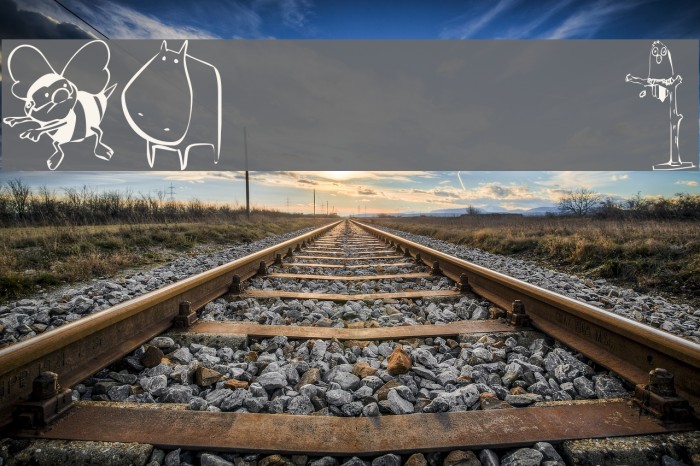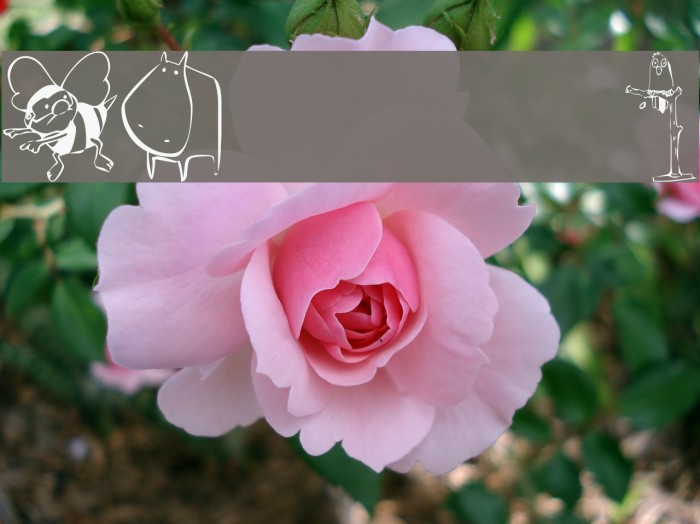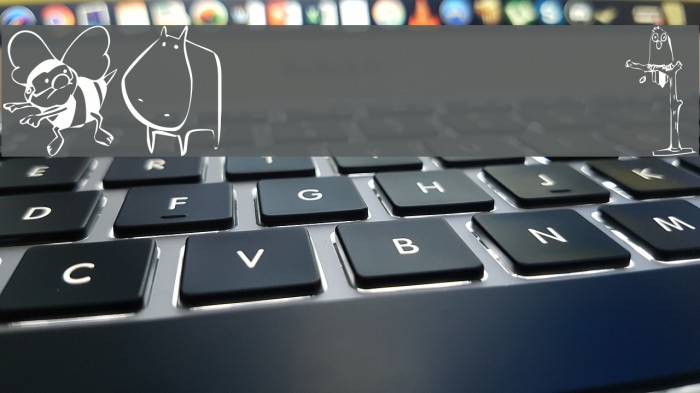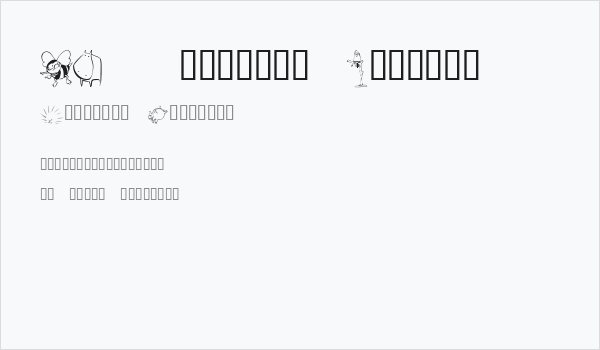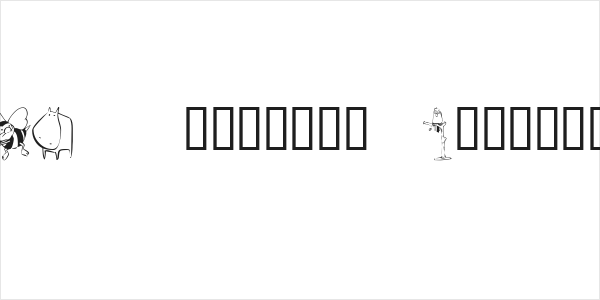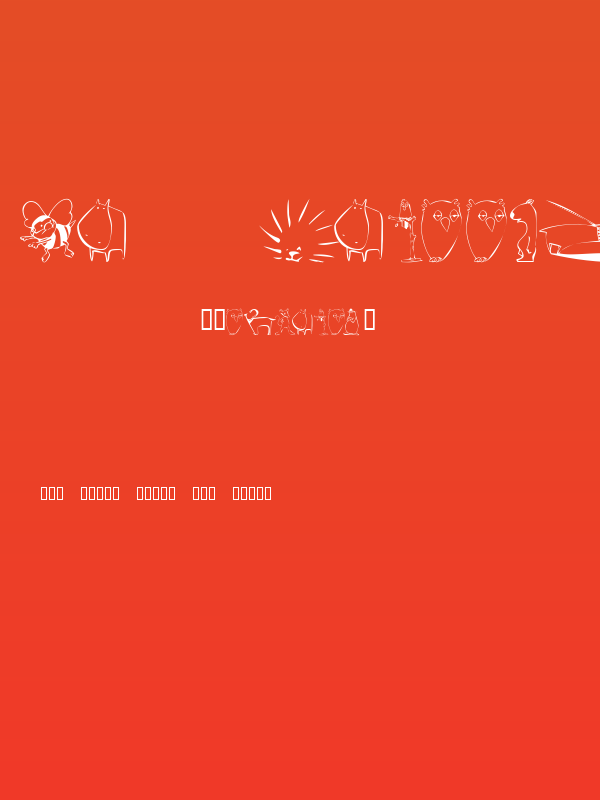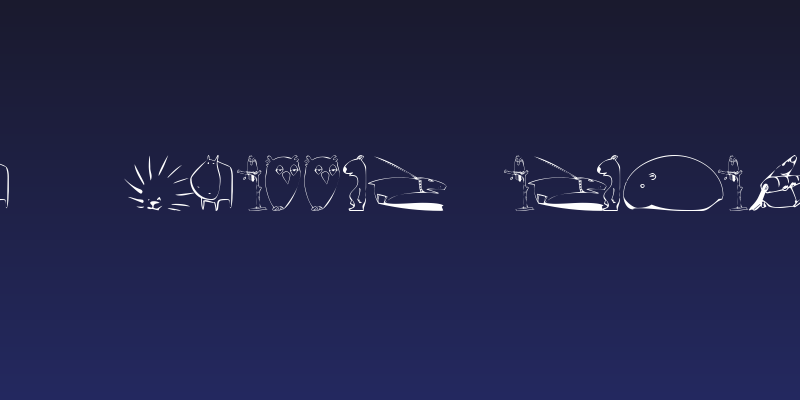
KR Scrappin Animals Font
KR Scrappin Animals Description
This font features a whimsical collection of hand-drawn animal illustrations, each character representing a different creature in a playful and cartoonish style. The designs are simple yet expressive, capturing the essence of each animal with minimal lines and a touch of humor. The characters are arranged in a way that suggests movement and personality, making them ideal for creative projects that require a fun and lighthearted touch. The font does not include traditional alphanumeric characters, focusing instead on these unique animal depictions.
| Overall Style | Whimsical |
| Use Case | Decorative illustrations, not suitable for text. |
| Proposed Projects | Ideal for children's books, educational materials, greeting cards, and playful branding projects. |